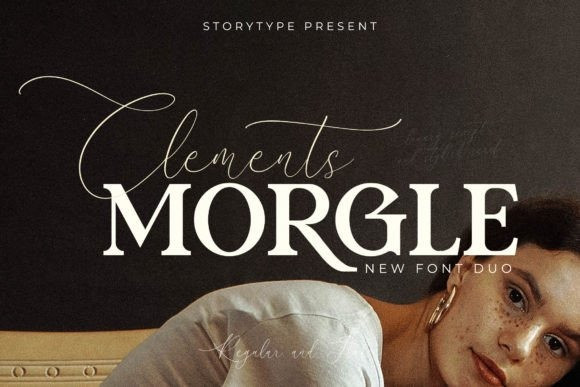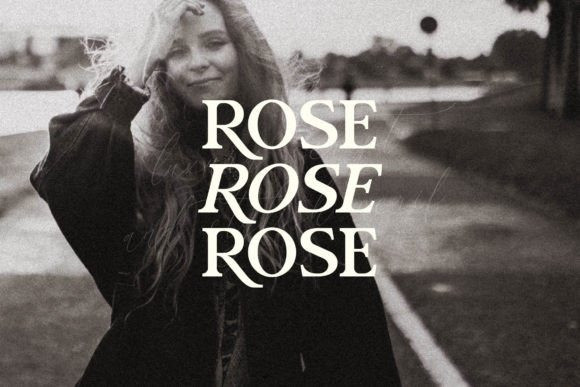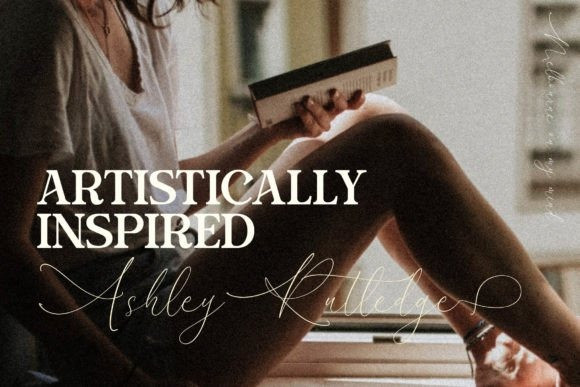
Clements Morgle Duo Font
Clements Morgle is a stunning font duo (serif and script). Stylish, elegant, and classy, this font is suitable for all your design projects that need a refined look. This font is PUA encoded which means you can access all the glyphs and ligatures with ease!